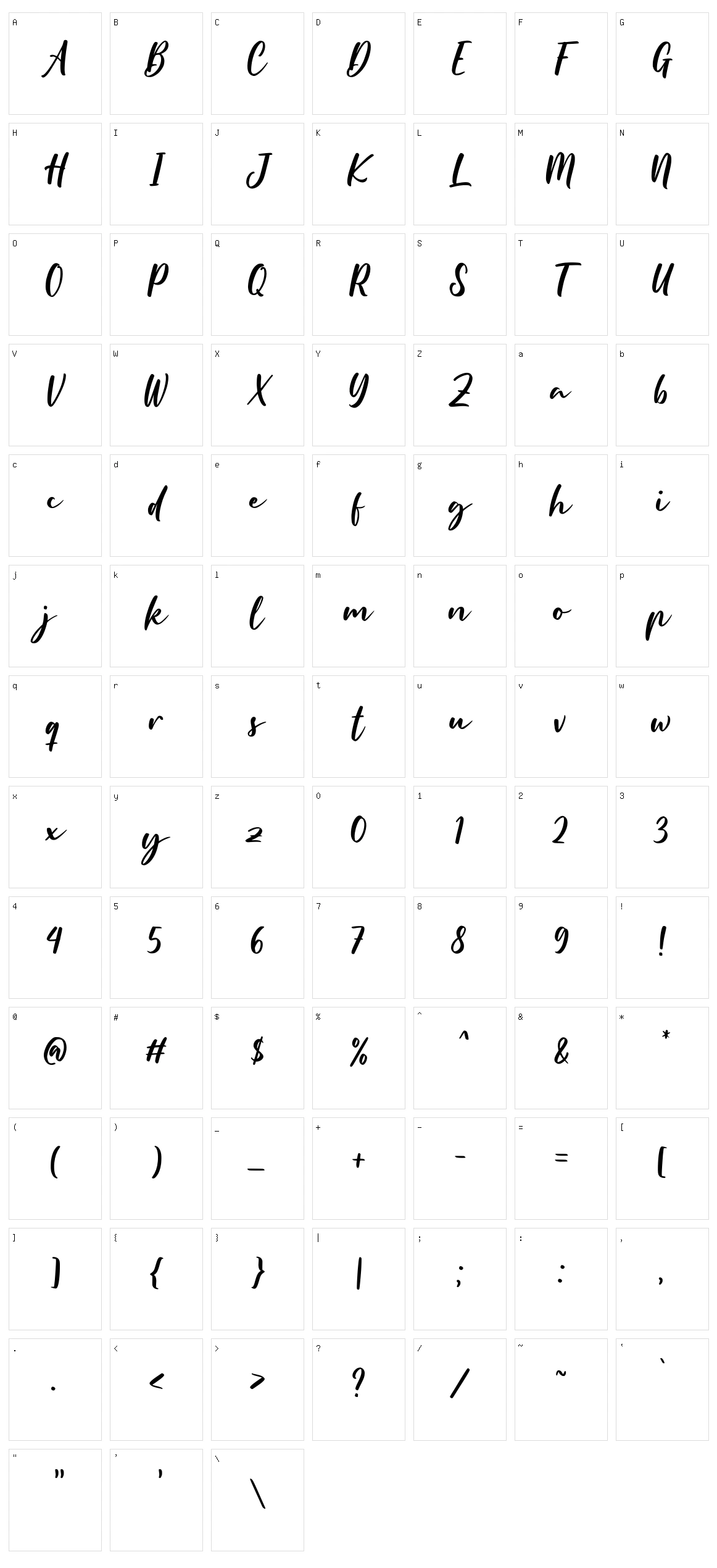
The free font Hoffermond is carefully designed by Hendra Pratama, showcasing a thoughtful balance of creativity and usability and falls under the Script font style. When you download the ZIP file, it contains only 108.39 KB of font files, making it lightweight and quick to download. Please review the license details below to understand permitted usage and distribution rights. If license information is not available, we recommend using this font for personal projects only or contacting the author directly for commercial usage permissions.